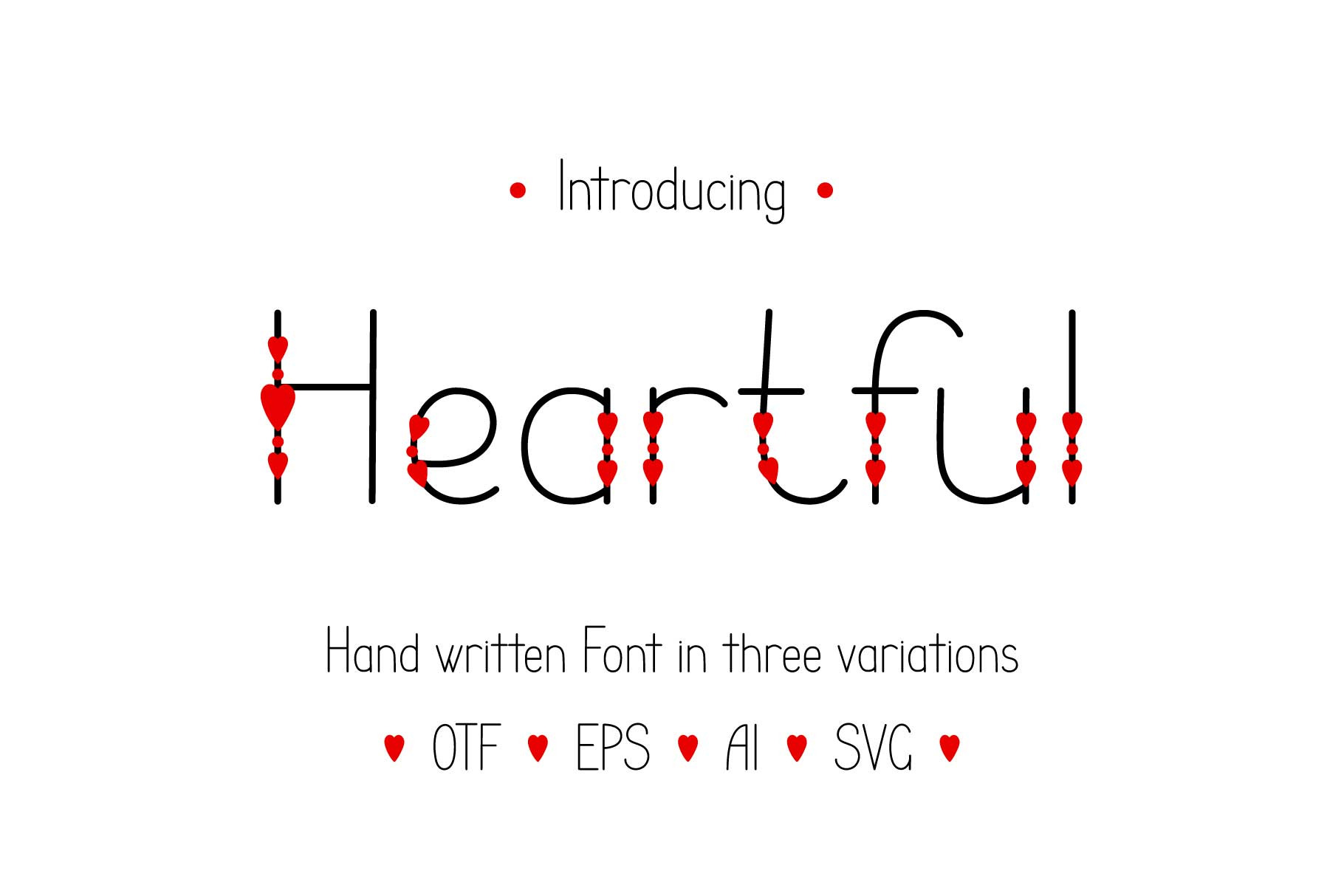
Heartful decorated font
Heartful Font Heartful is the hand written decorated font that is represented in three versions.
Heartful Color – red and black font decorated with hearts. Heartful Black – letters and symbols decorated with hearts in black color. Heartful Simple – non-decorated letters and symbols.
It can be used for any design purposes such as St Valentine cards, wedding invitations, birthday cards, home decor and so on to make your creations unique and authentic.